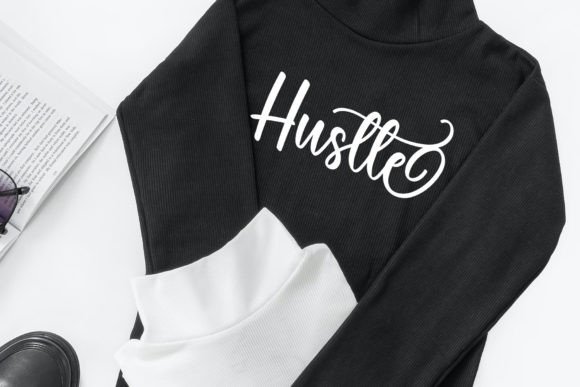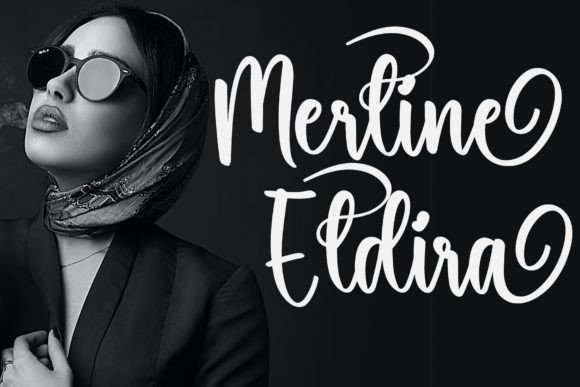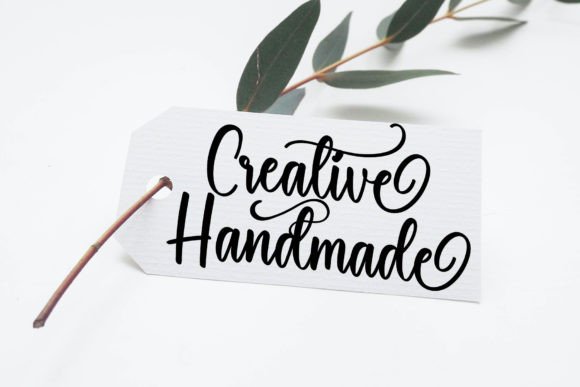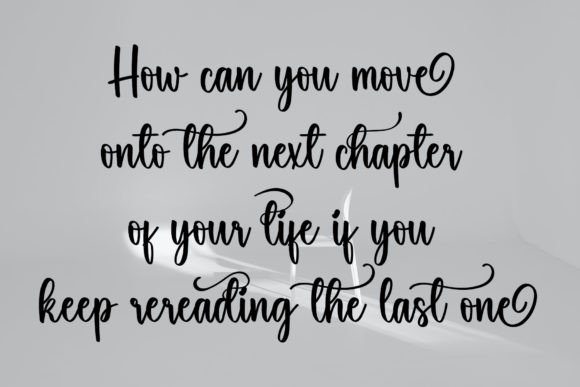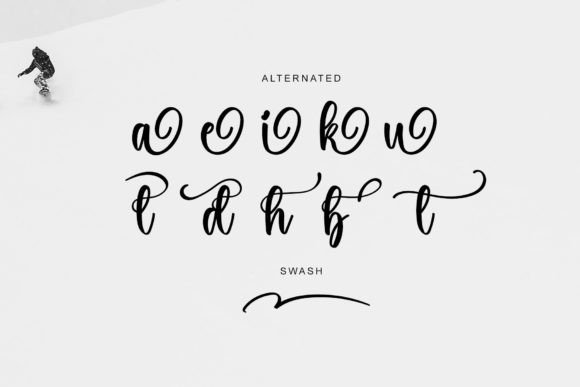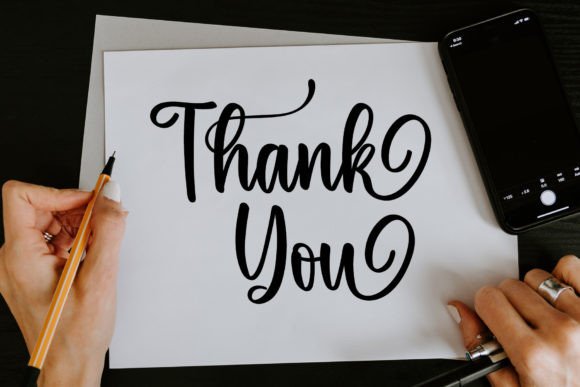
Introduction to Outback Font
Have you ever been stuck on a creative project, desperately searching for the perfect font to bring your vision to life? I’m sure many designers can relate to that moment of frustration, but what if I told you that there’s a solution that can make all the difference? Enter the Outback Font, a stylish handwritten font that exudes a contemporary atmosphere and impeccable form, inspired by timeless classic calligraphy.
With its balanced and varied design, the Outback Font is a valuable resource for any designer looking to enhance the beauty of their projects. Whether you’re working on a high-quality brochure, creating a stunning logo, or simply need a unique font for a free download, the Outback Font is sure to impress. Its transparent background makes it easy to integrate into any design, while its free download feature means you can access it without breaking the bank.
As a design resource, the Outback Font is a game-changer. Its versatility and high-quality design make it perfect for a wide range of creative projects, from business cards to social media graphics. So why settle for a generic font when you can elevate your design with the Outback Font?
Key Features of Outback Font
- High-quality design with a unique Australian outback theme, perfect for creative projects and designs.
- Transparent background option allows for seamless layering and customization in design software.
- Includes a range of characters, including uppercase and lowercase letters, numbers, and special characters, making it a versatile design resource.
- Designed with a high resolution of 1024 x 1024 pixels, ensuring crisp and clear typography in any design project.
- Perfect for use in logos, branding, and other creative projects where a unique and rugged design is desired.
- Supports a wide range of languages, making it a valuable resource for designers working on international projects.
Honest Review: Outback Font
I recently had the chance to work with the Outback Font for a creative project, and I was pleasantly surprised by its high quality and versatility. As a designer, I’m always on the lookout for reliable design resources, and this font definitely delivers.
One of the standout features of the Outback Font is its transparent background, which makes it easy to layer and combine with other design elements. This is especially useful when working on complex projects where you need to balance multiple elements and ensure they all work together seamlessly.
Here are some of the things that work well with the Outback Font:
- ✨ High quality and crisp typography
- ✨ Versatile and suitable for a wide range of creative projects
- ✨ Transparent background for easy layering and combination
Of course, no font is perfect, and the Outback Font has a few limitations:
- ⚠️ Limited character set, which may not be suitable for longer blocks of text
- ⚠️ Some users may find the font a bit too bold or overpowering
Overall, I’m impressed with the Outback Font and would definitely consider using it for future projects. While it may not be perfect, its high quality and versatility make it a valuable addition to any designer’s toolkit.
To get the most out of the Outback Font, use it in conjunction with other design elements to create a cohesive look. Experiment with different font sizes and colors to add depth and interest to your design.
Common Use Cases for Outback Font
The Outback Font is perfect for use in creative projects such as logos, business cards, and brochures. Its high quality design and transparent background make it easy to use in a variety of design applications.